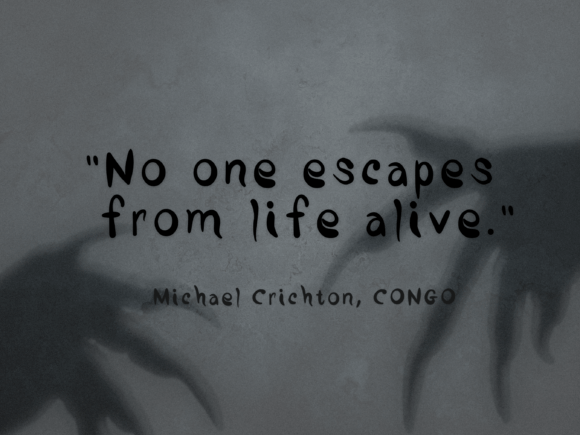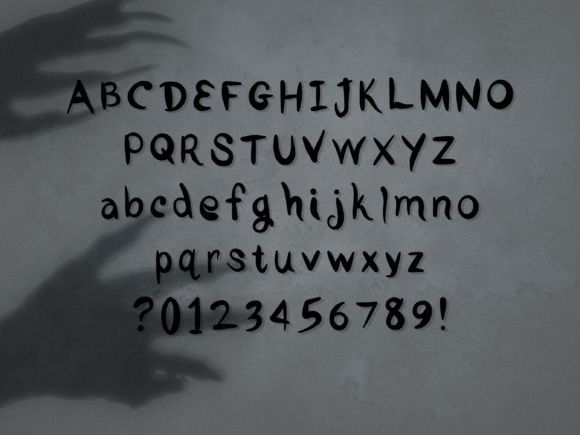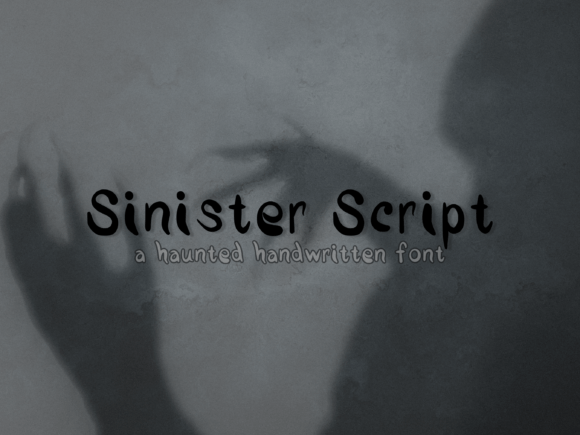
Introduction to Sinister Script Font
Embrace the spine-tingling spirit of Halloween and horror with our Sinister Script font.
Crafted to send shivers down your spine, this haunting typeface is perfect for all your sinister design needs Whether you’re creating eerie invitations, spooky party decor, or chilling Halloween crafts, Sinister Script adds an aura of suspense.
Sinister Script Font offers exceptional quality and versatility, making it a valuable addition to your design toolkit. Whether you’re creating for personal projects or commercial use, Sinister Script Font delivers professional results.